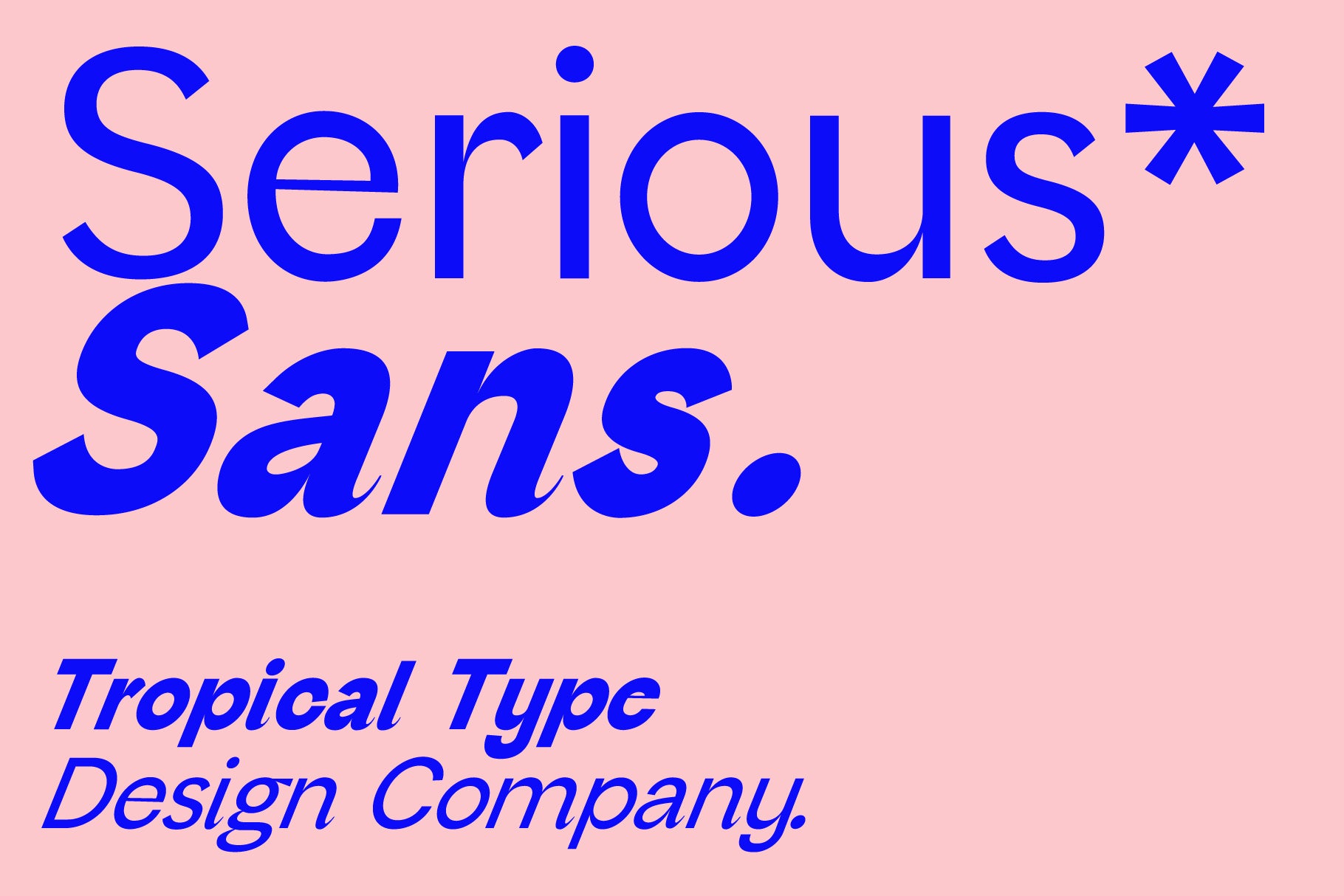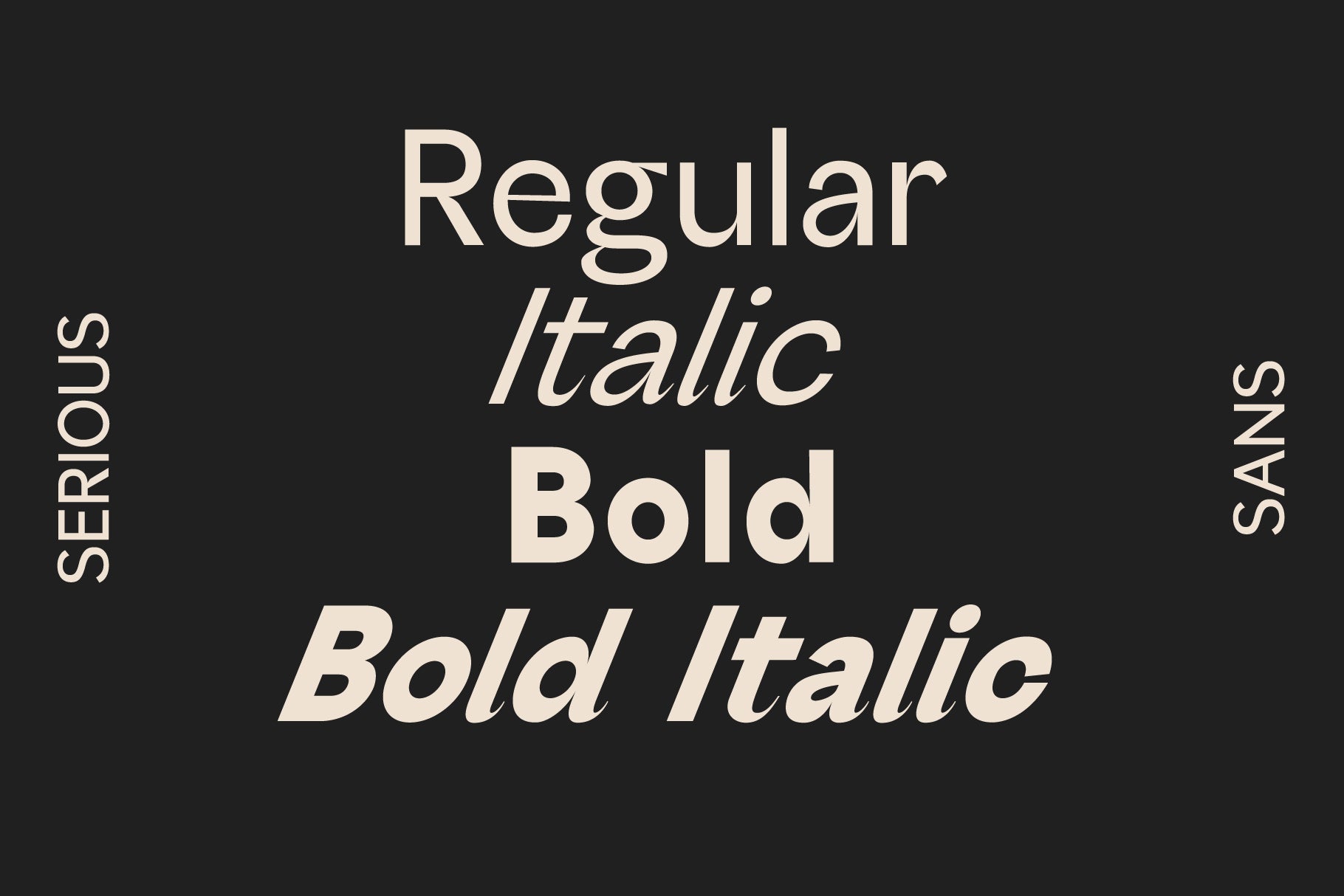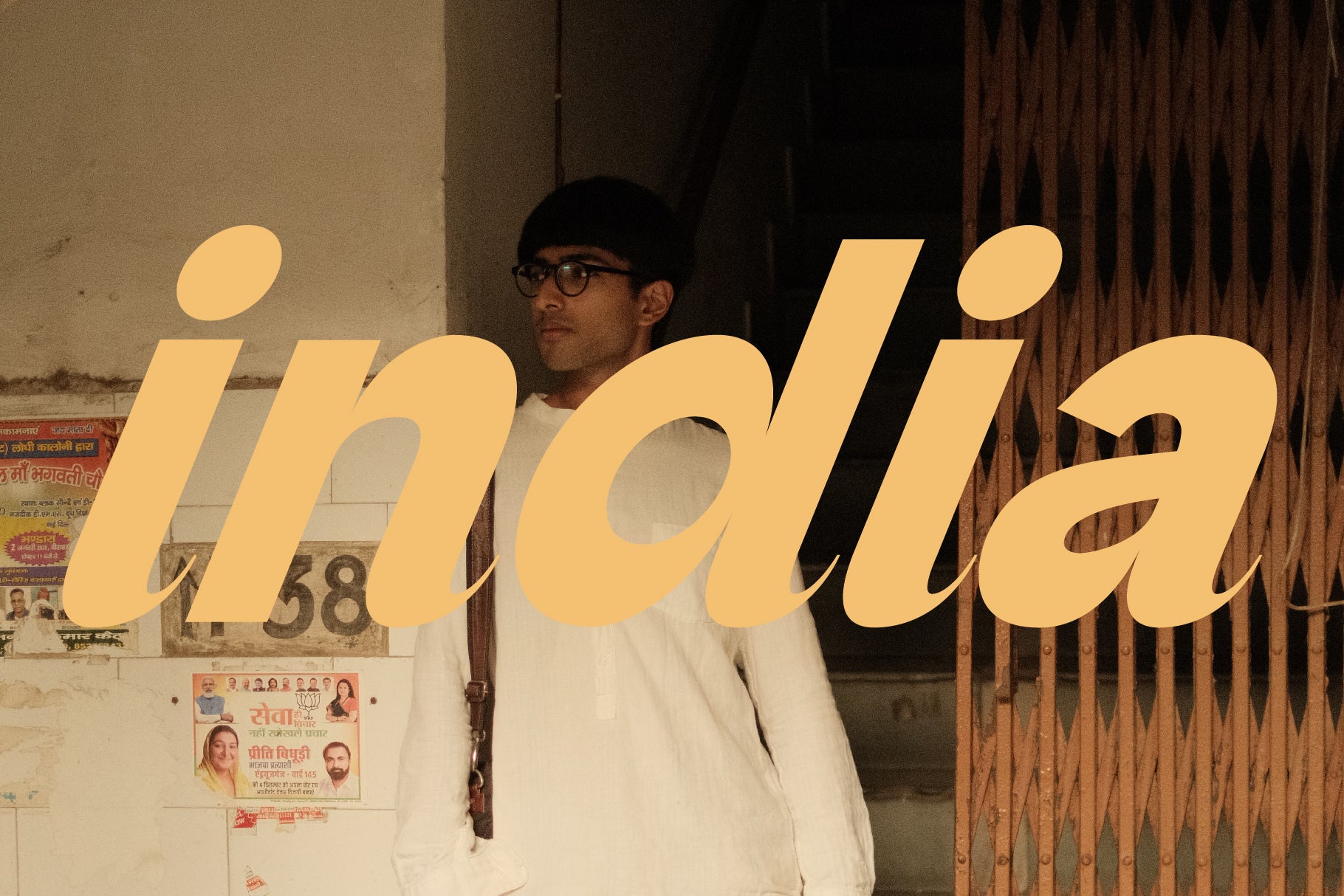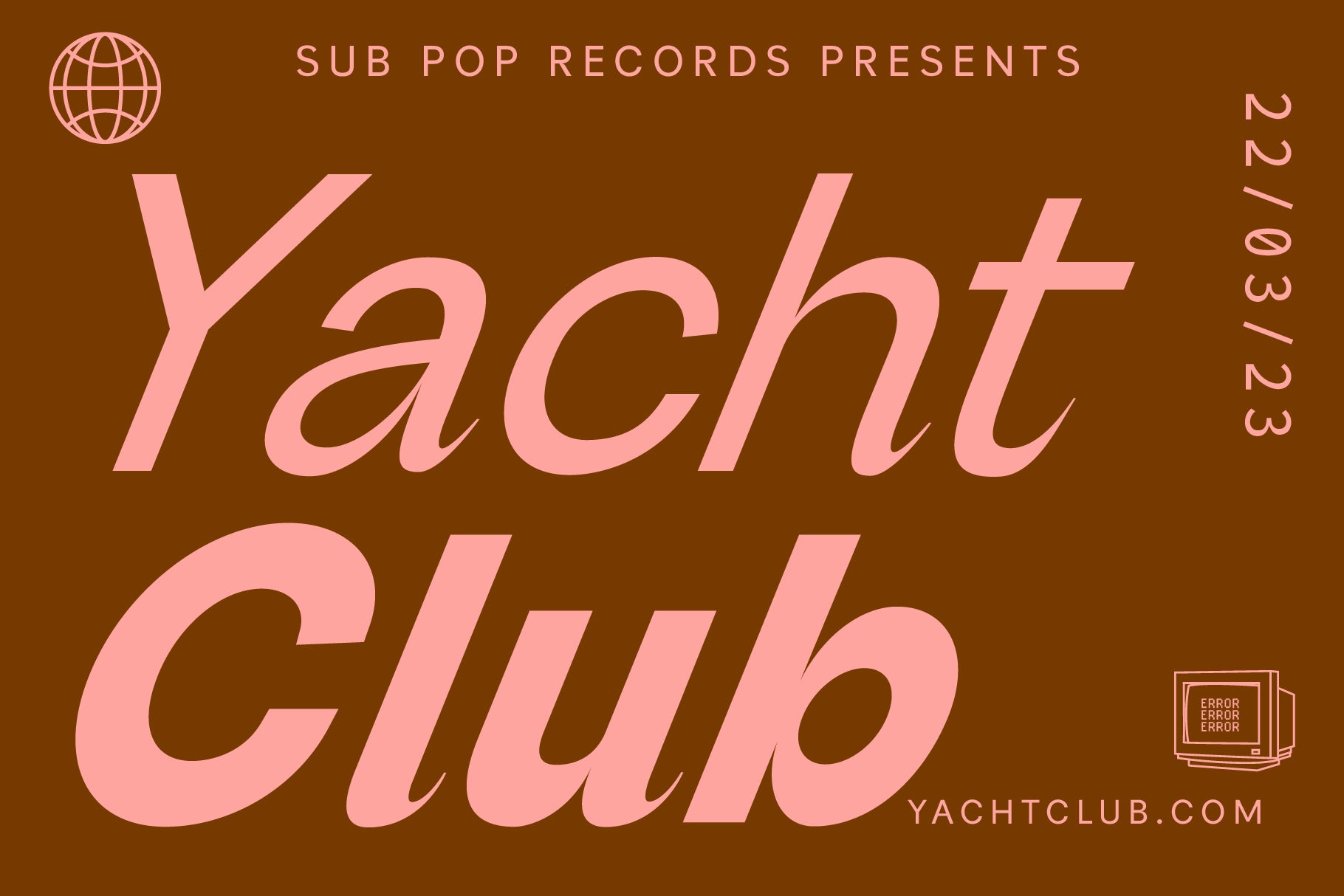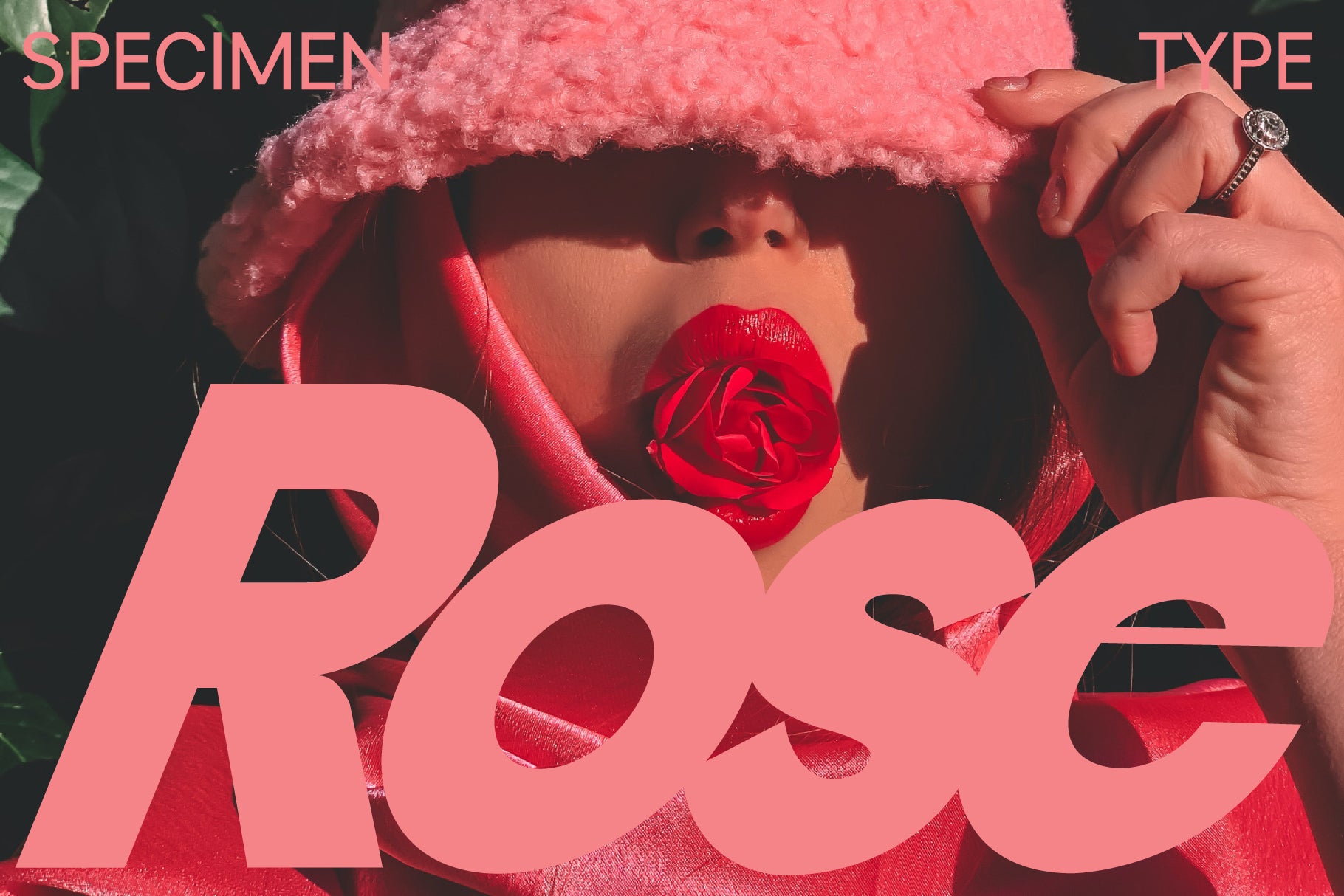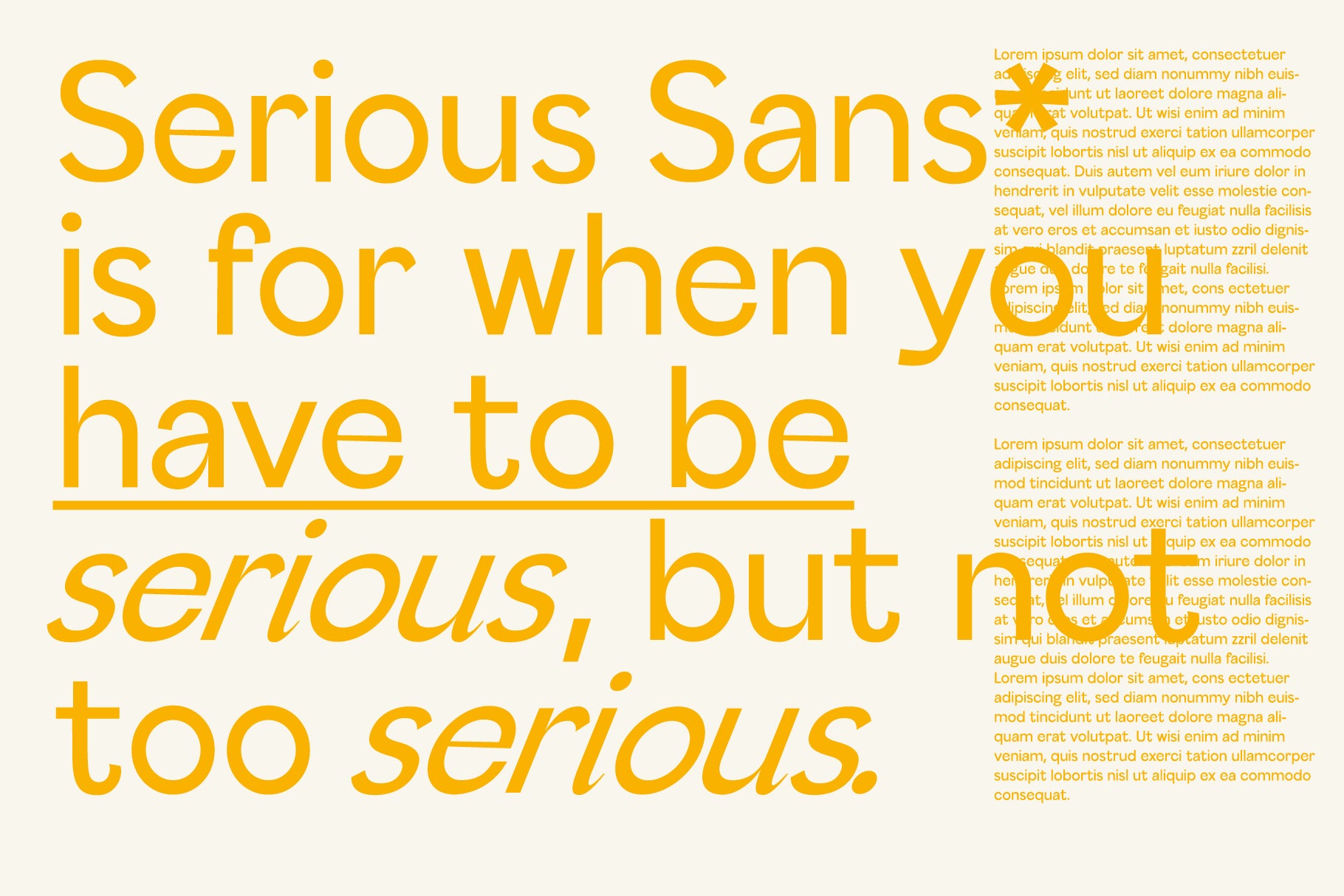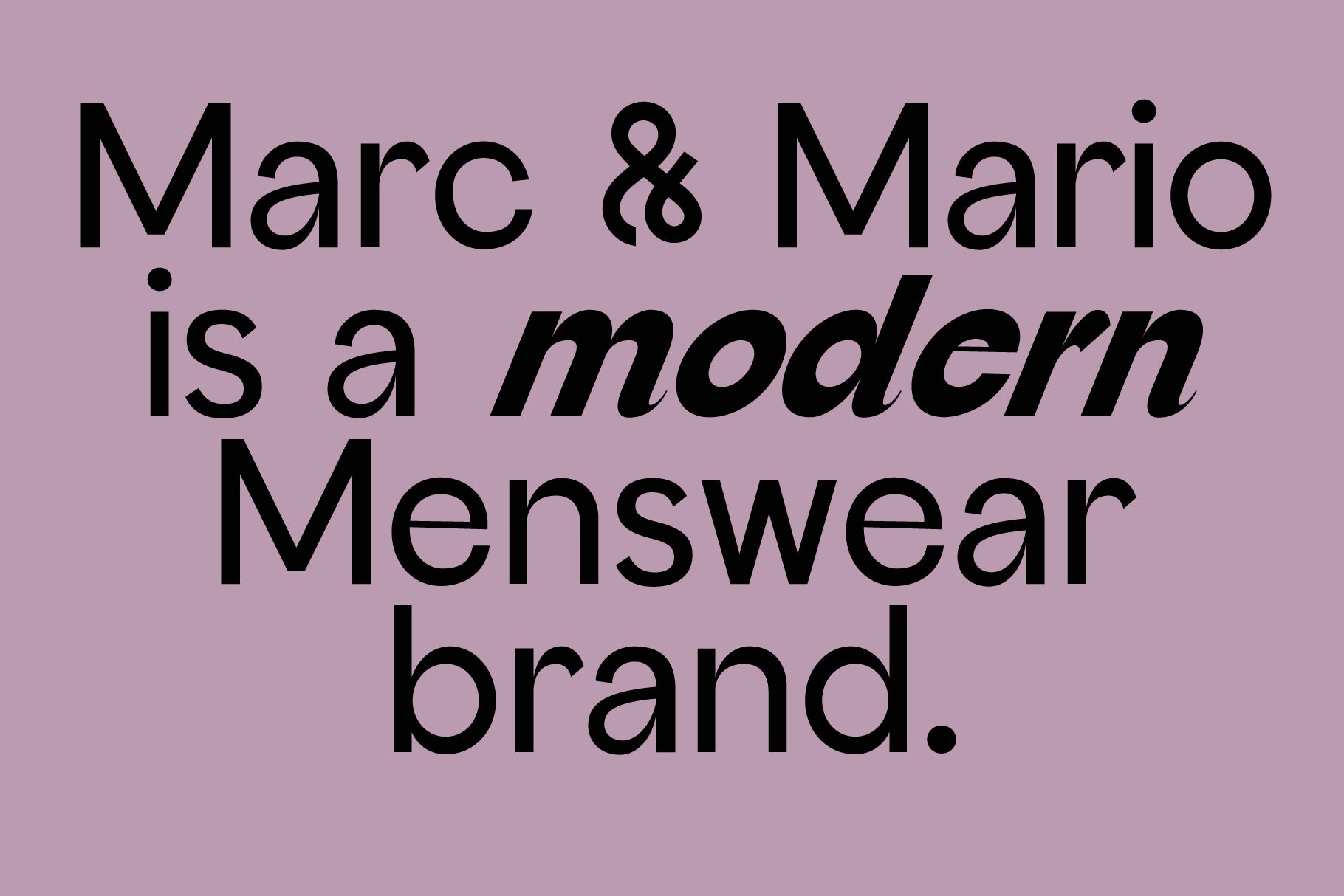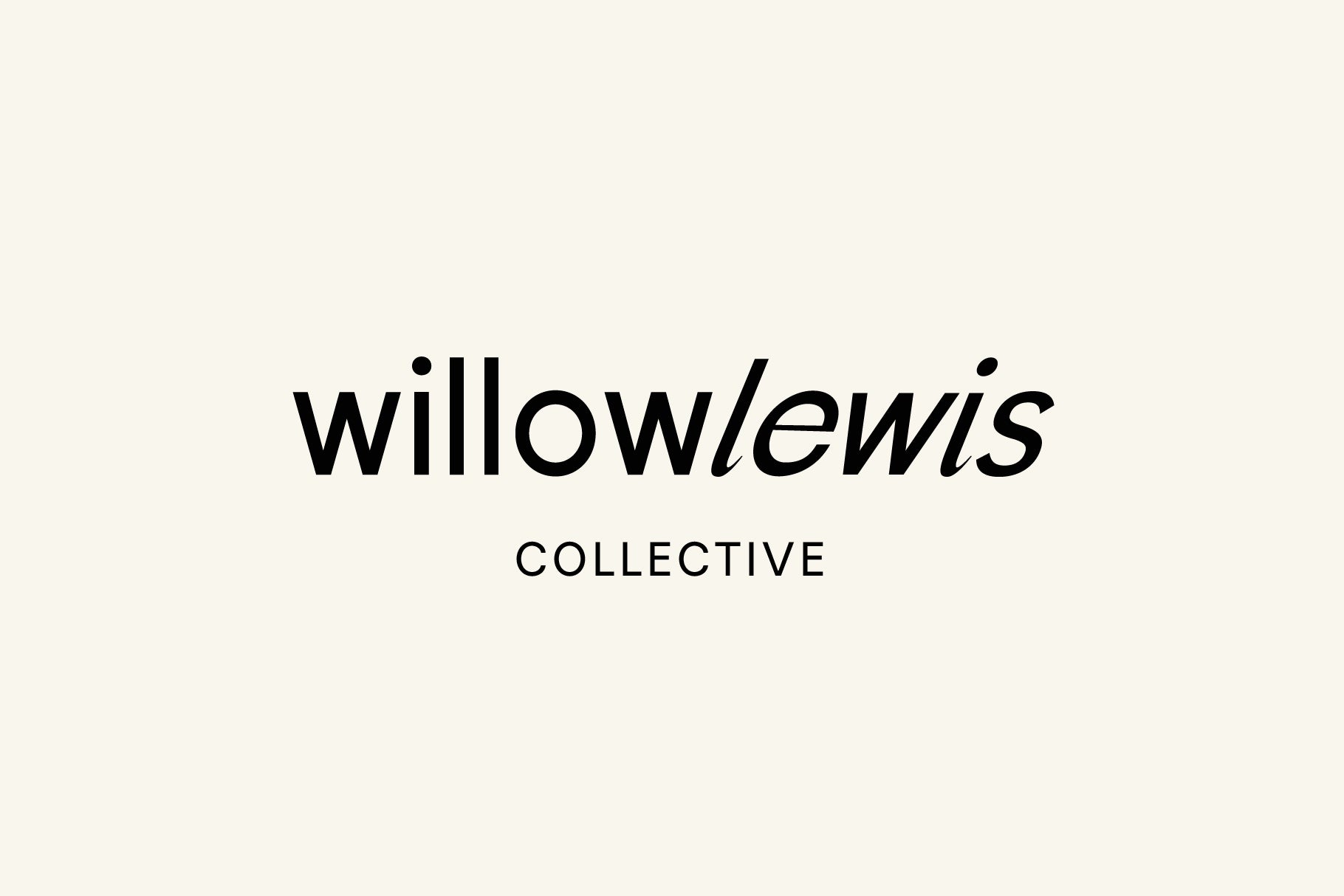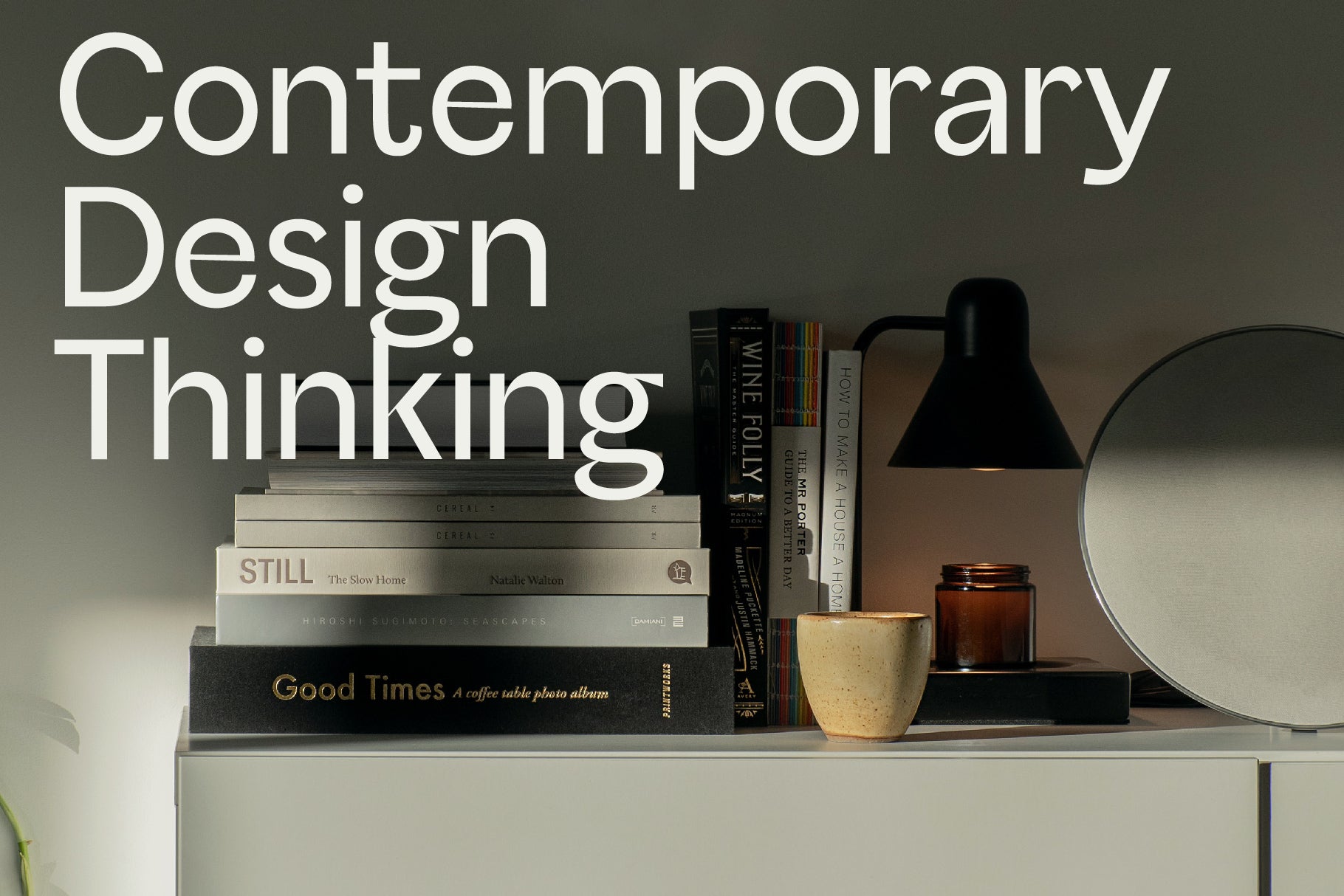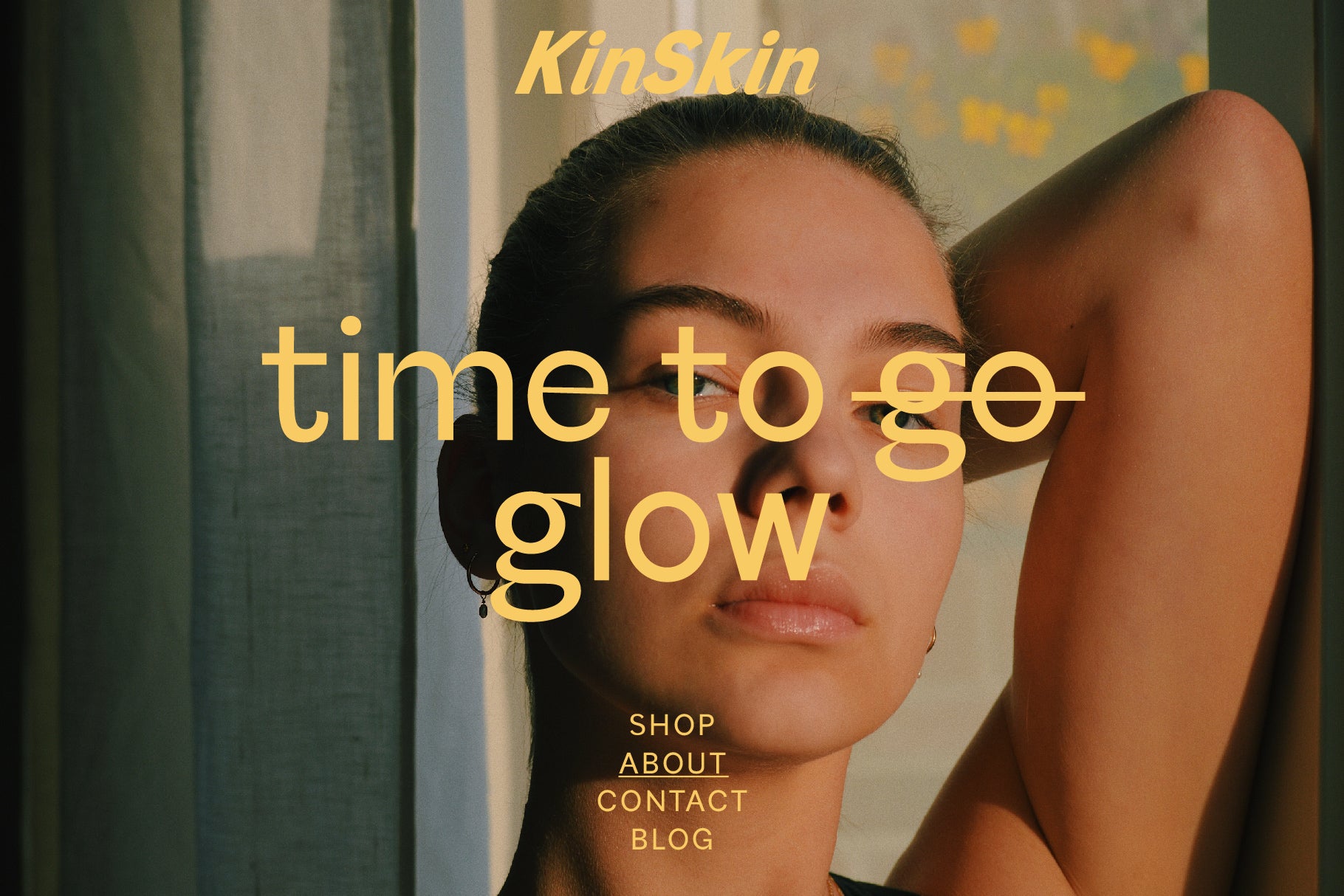
Serious Sans
Serious Sans is a geometric sans serif that is a bit serious, but not that serious.
It's for when you need a legible typeface with a bit of flair and fun. The bold is really bold to give proper contrast and there are italics too.
- Regular
- Regular Italic
- Bold
- Bold Italic
Non English glyphs included:
ą á â à ä å ã æ ć ç ę é ê è ë í î ì ï ı ł ñ ń ó ô ò ö õ ø œ ś š ß ú û ù ü ý ÿ ž ź ż.Ą Á  À Ä Å Ã Æ Ć Ç Ę É Ê È Ë Í Î Ì Ï Ł Ń Ñ Ó Ô Ò Ö Õ Ø Œ Ś Š Ú Û Ù Ü Ý Ÿ Ź Ż